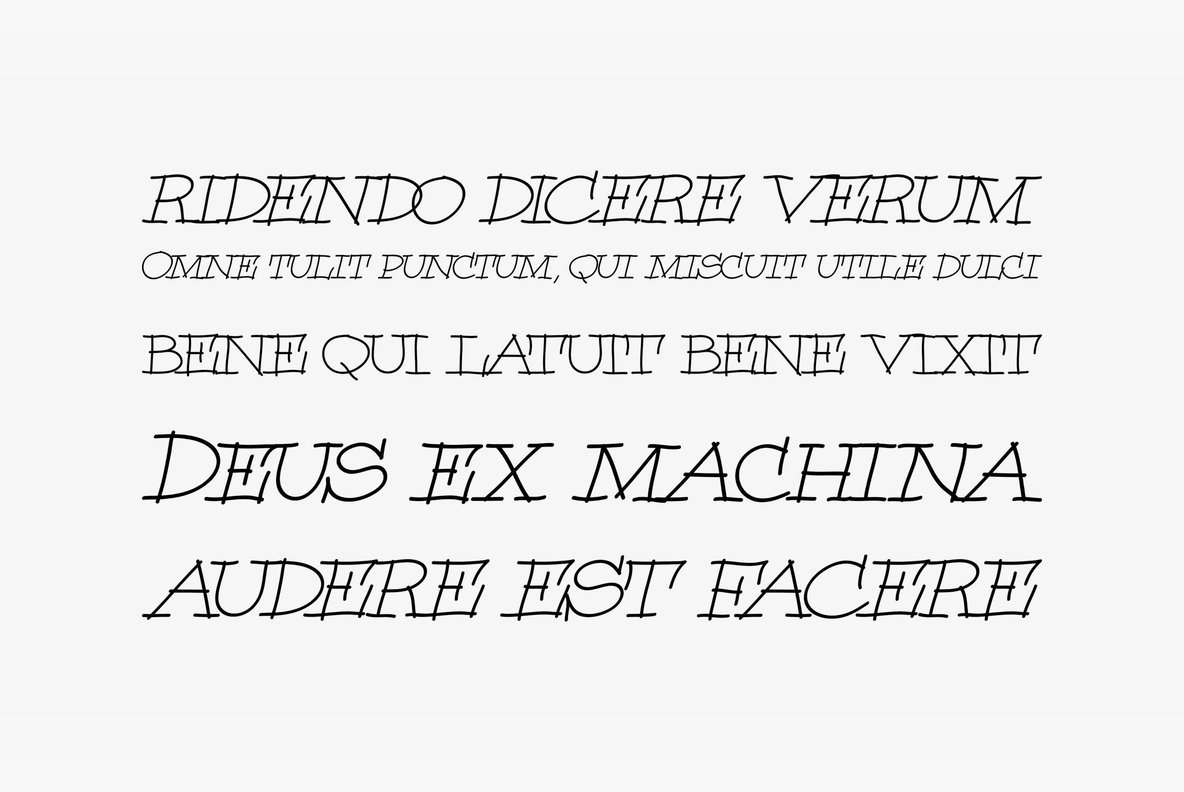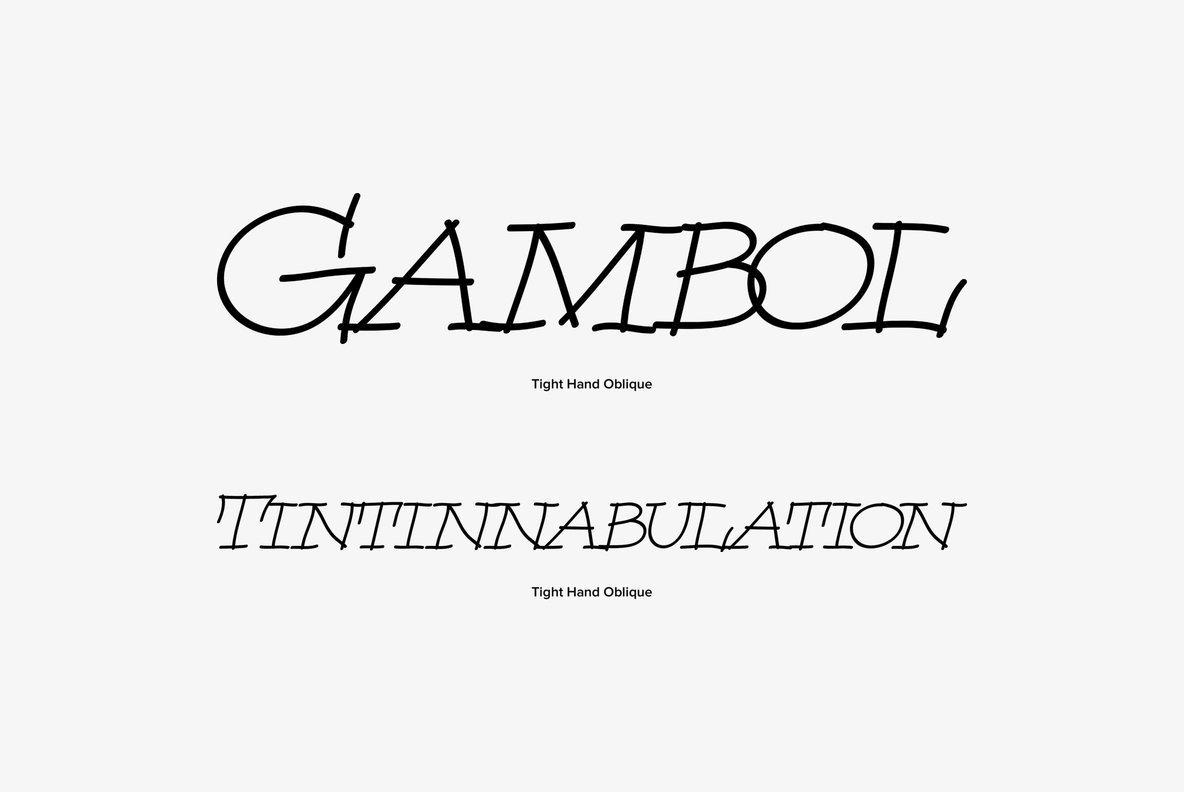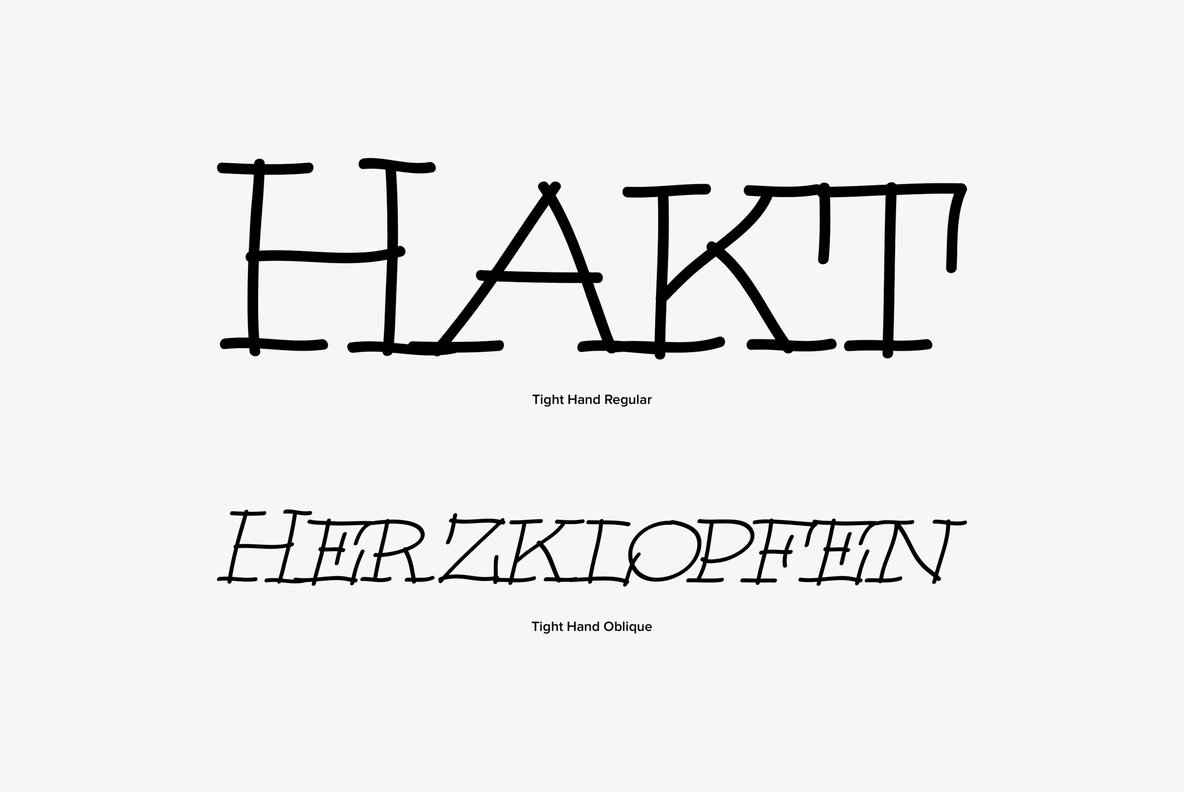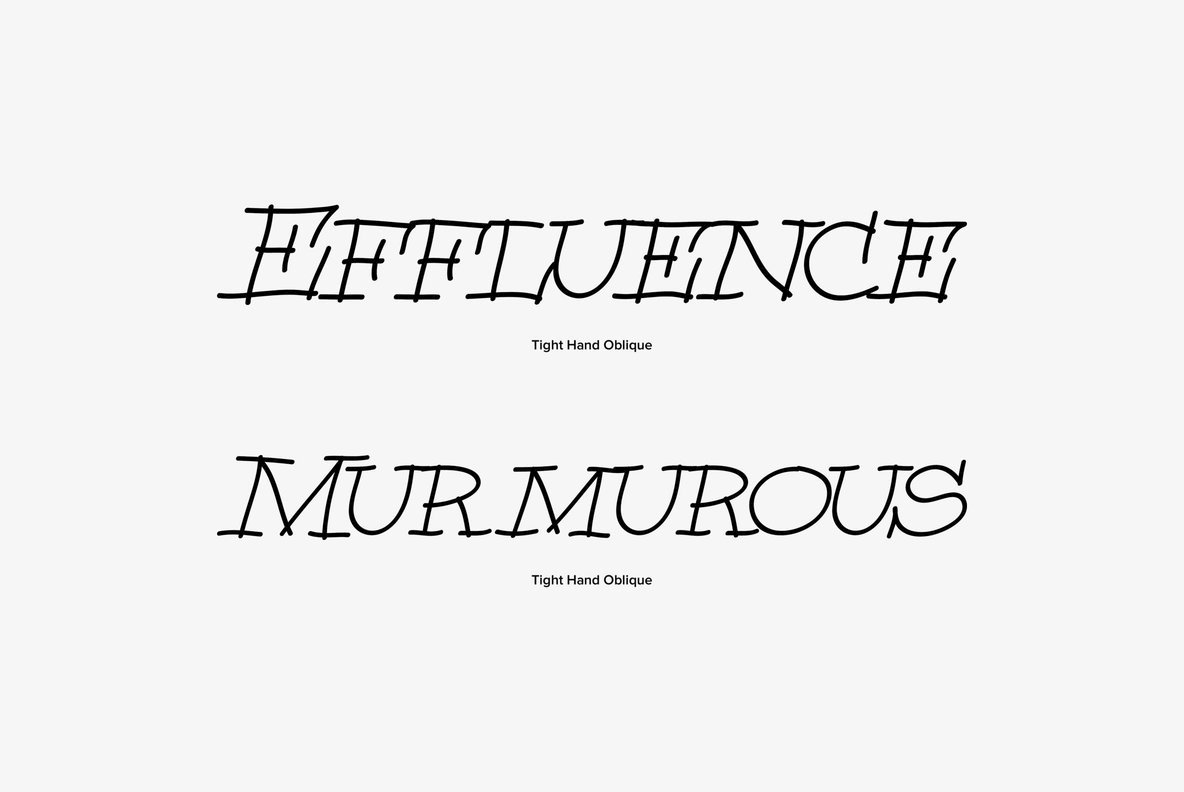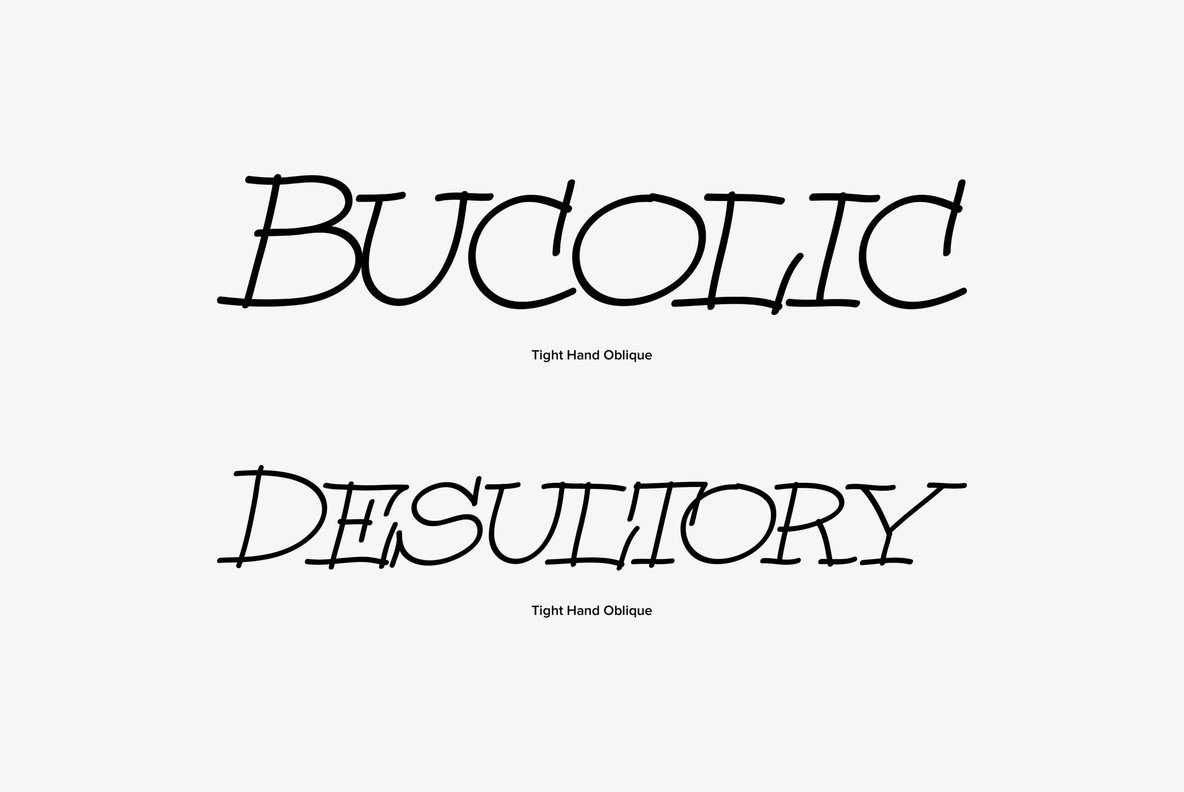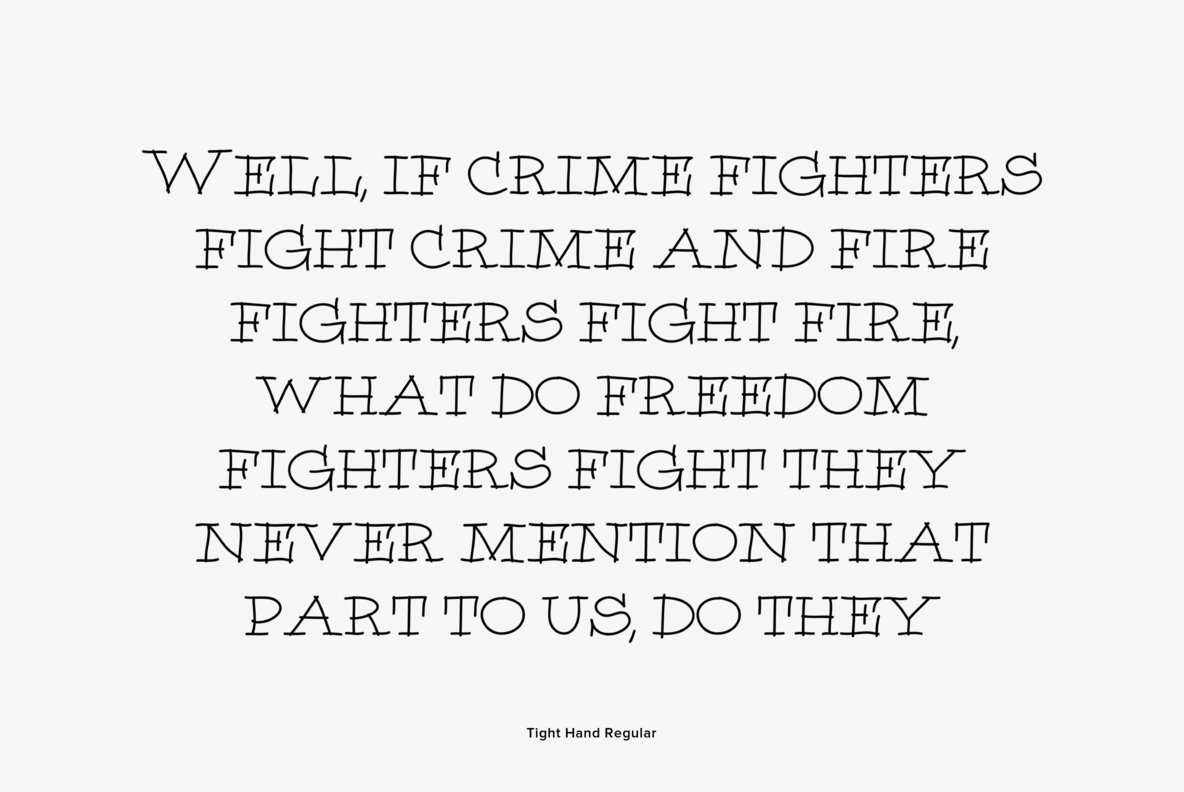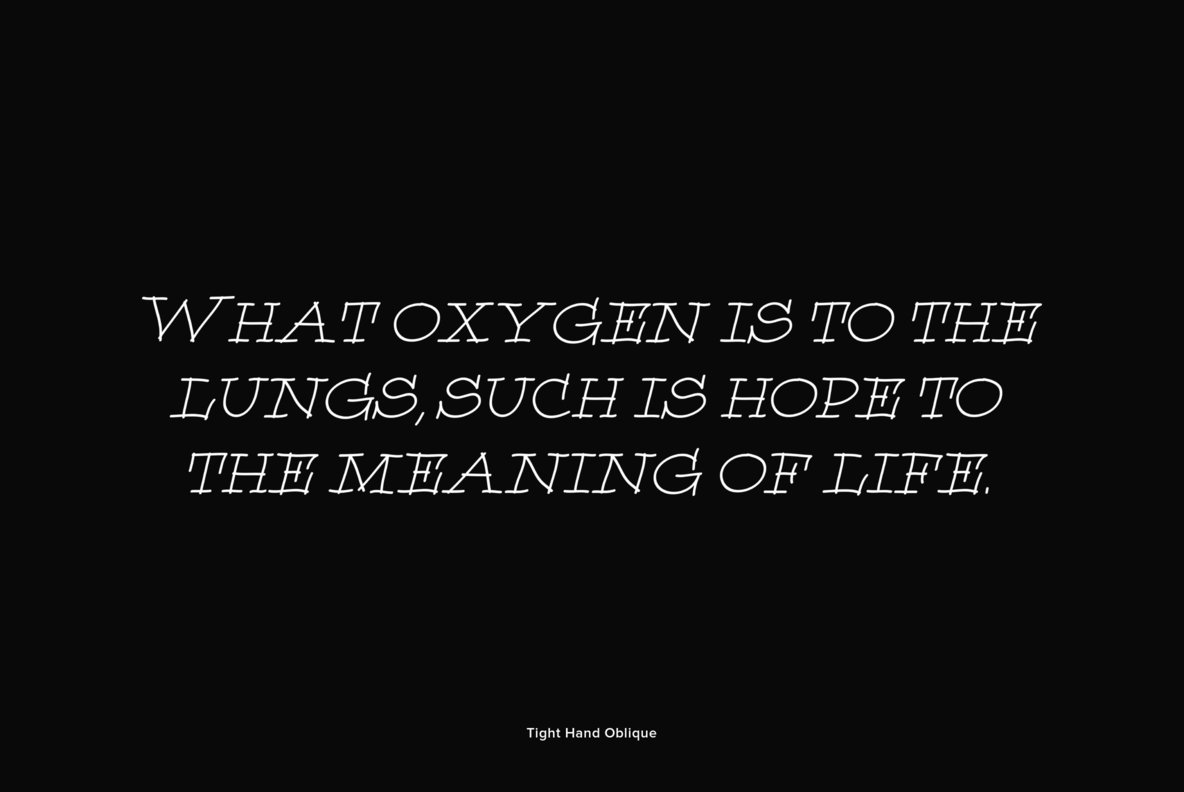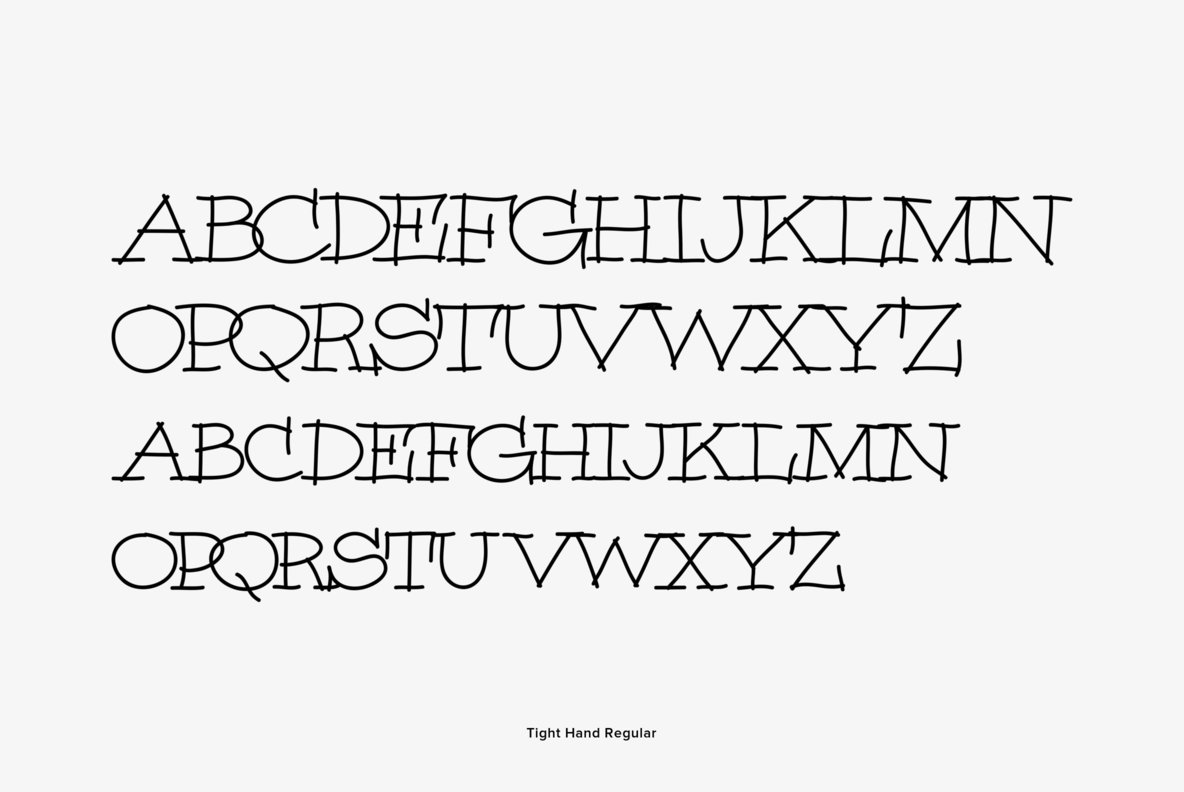
Tight Hand Font
Tight Hand is a hand-lettered serif font set. Tight Hand Regular is vertical while Tight Hand Oblique is the oblique version. Both fonts have the same uppercase and small caps lowercase alphabet, numbers, accented characters, punctuation, symbols, and miscellaneous characters. The Tight Hand fonts are ideal for use where a casual, loose feel is desirable.